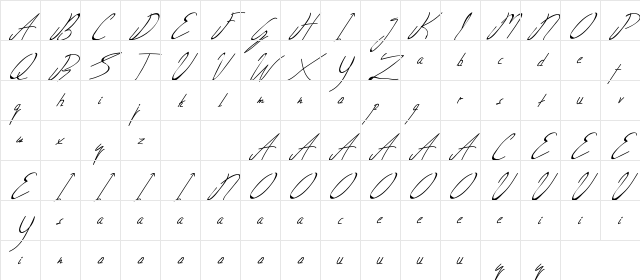
Livingston Demo Signature Regular Free Font
Livingston Demo Signature Regular
Foundry: Edric Studio
Designer: Ega nugraha
Design Context for Livingston Demo Signature
Livingston Demo Signature is a composed and adaptable typeface that performs quietly and consistently across a wide range of design contexts.